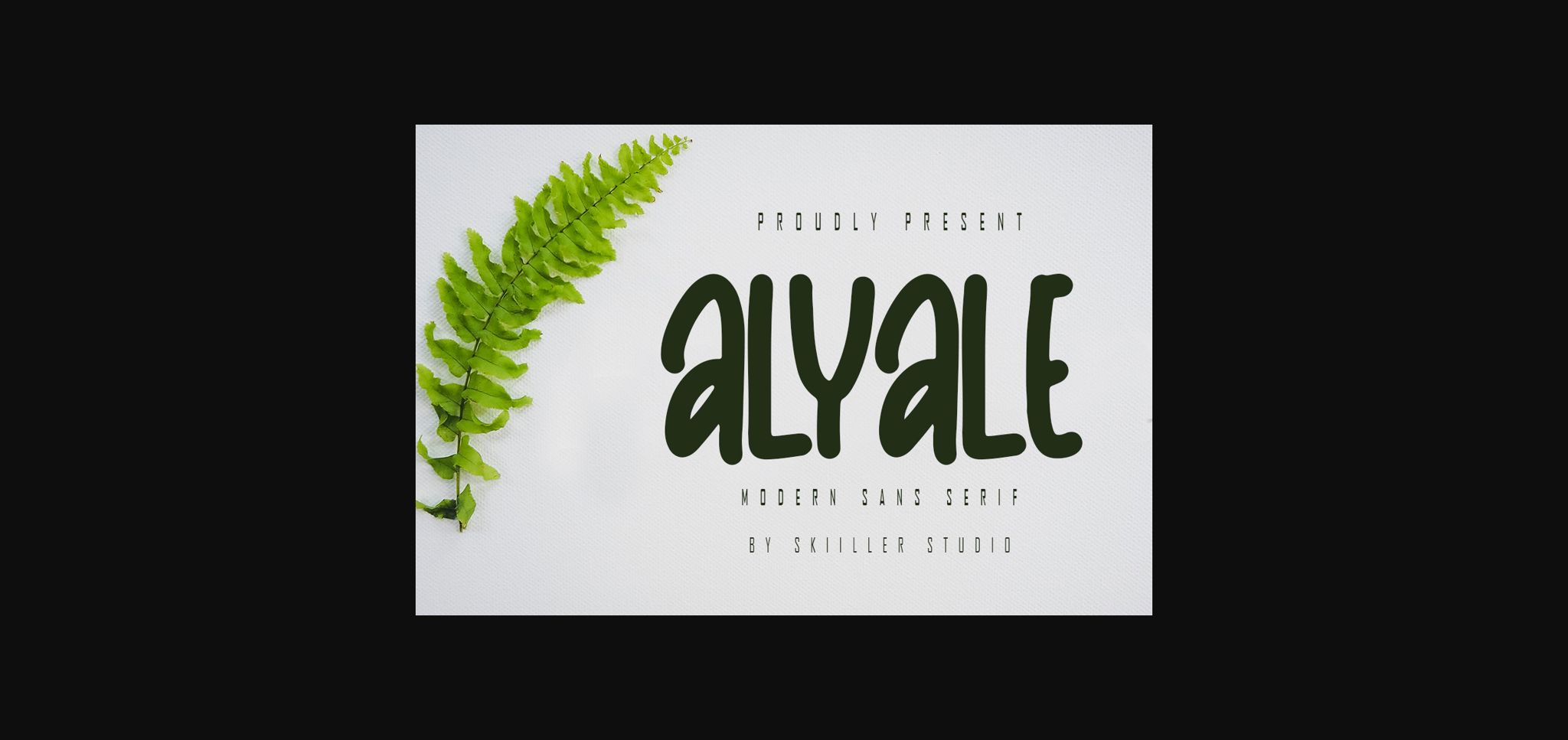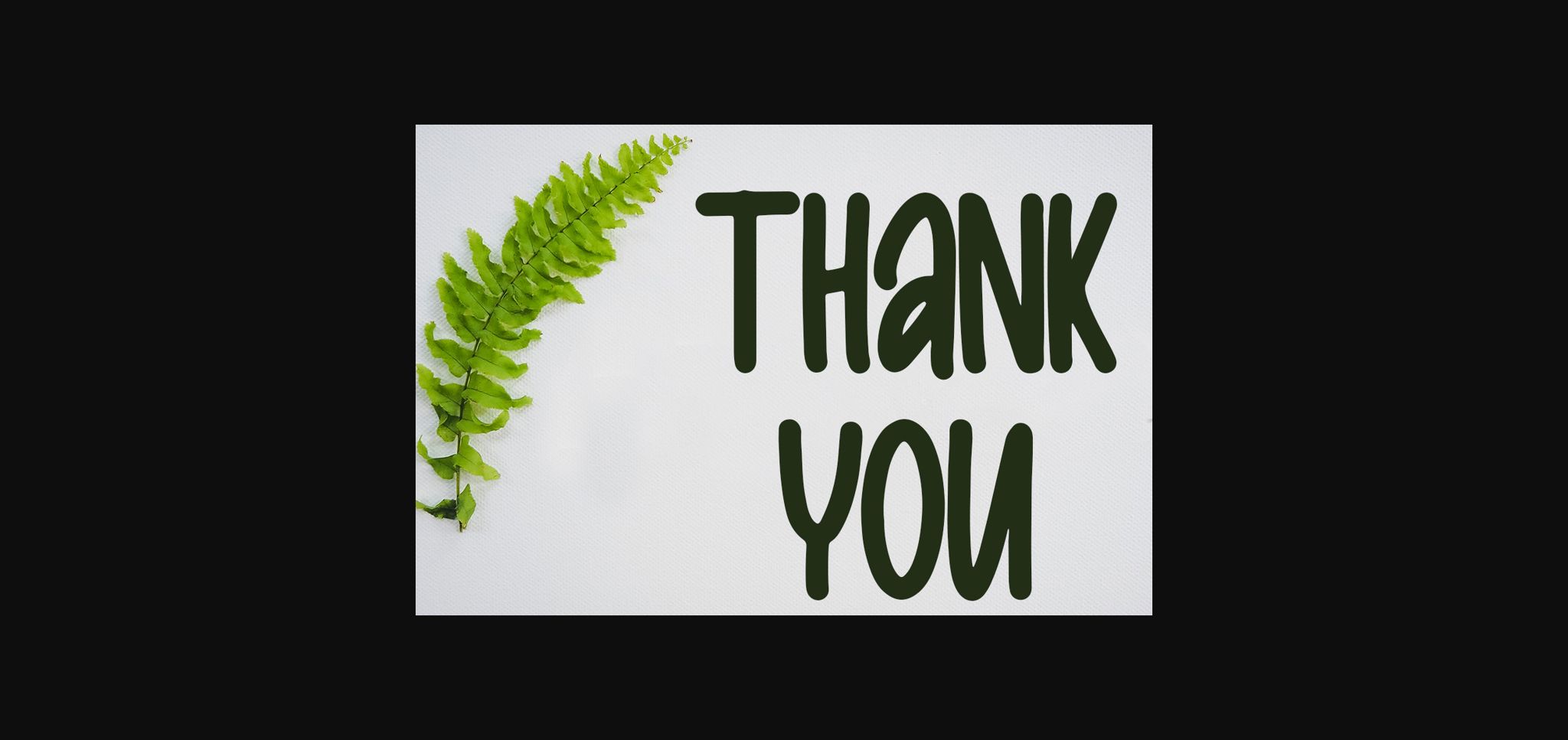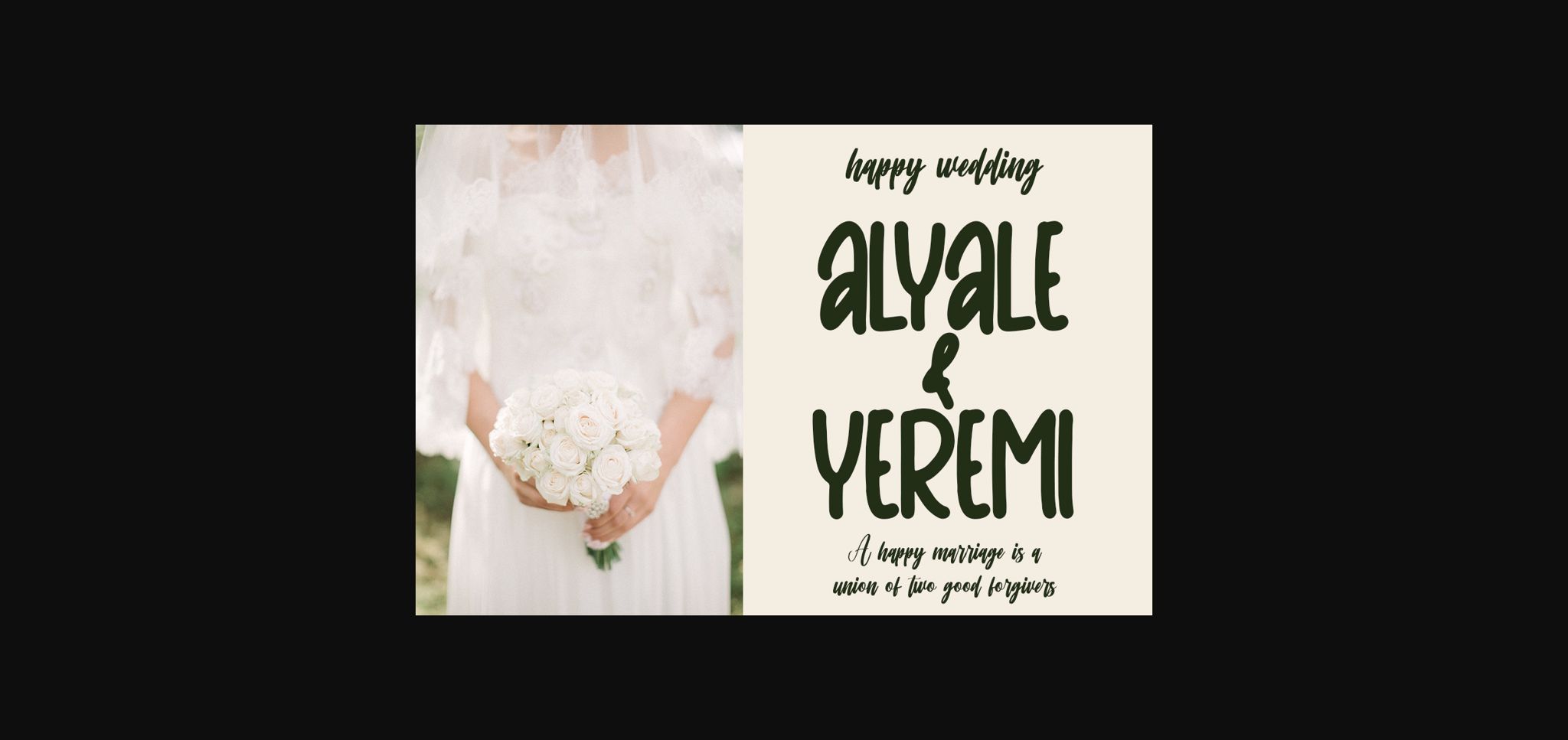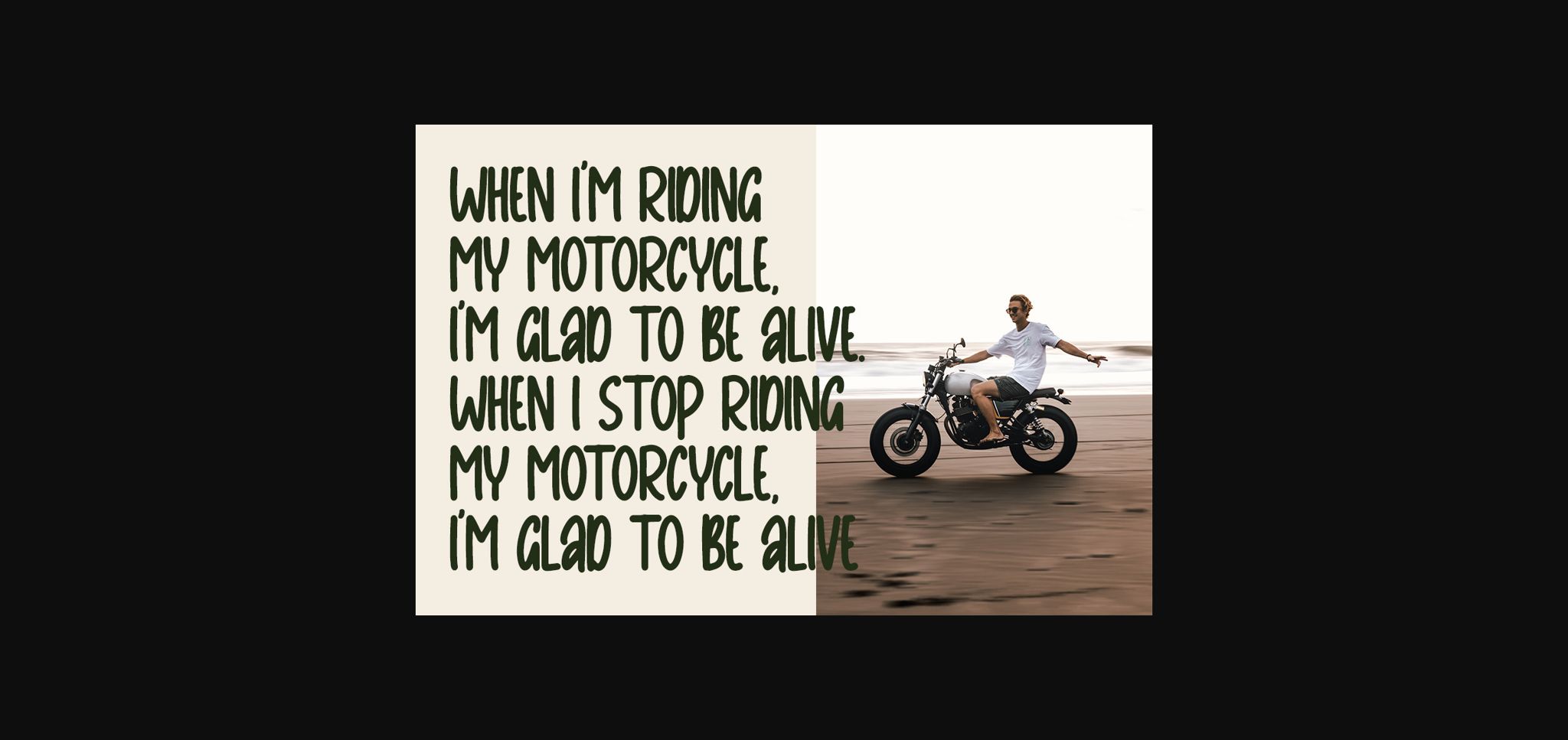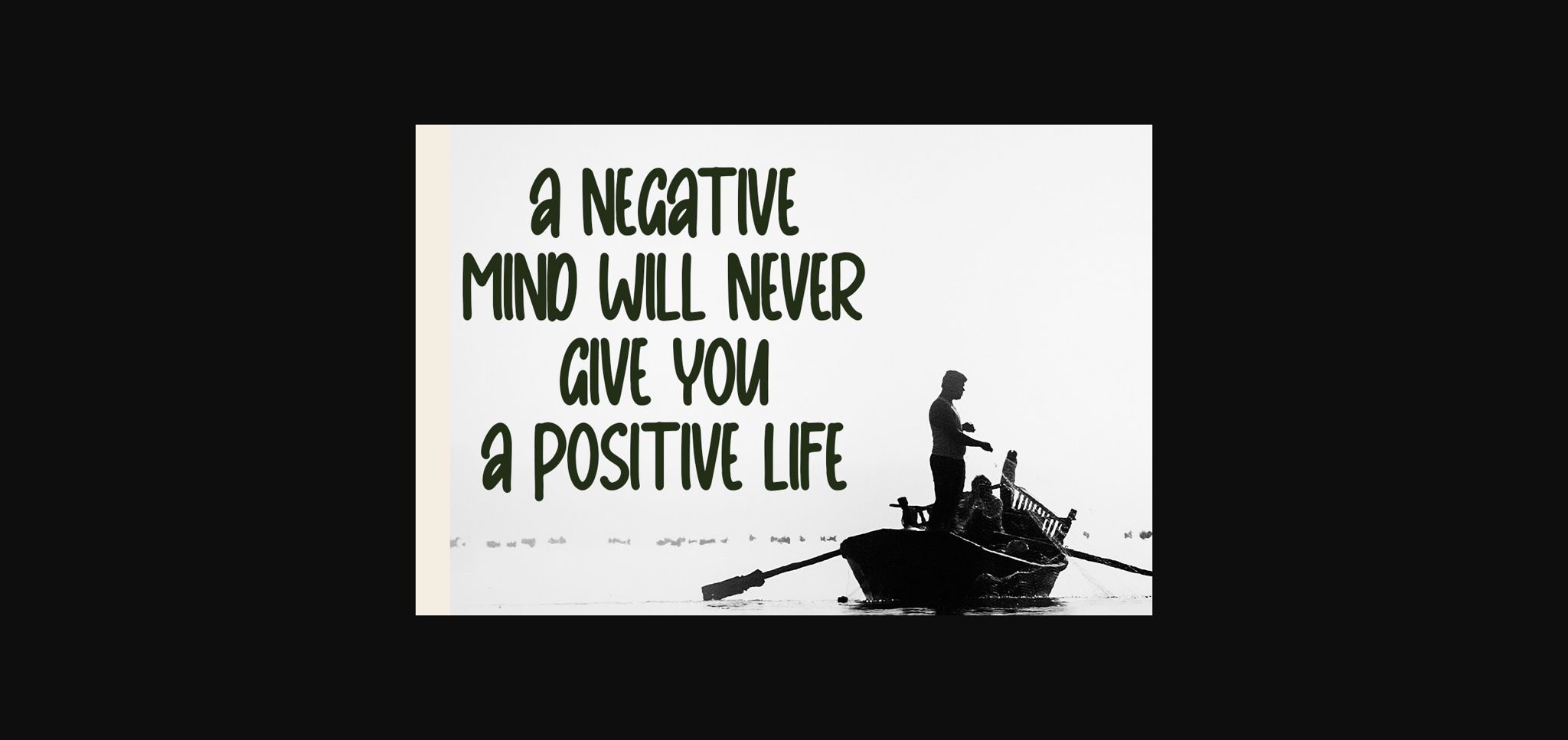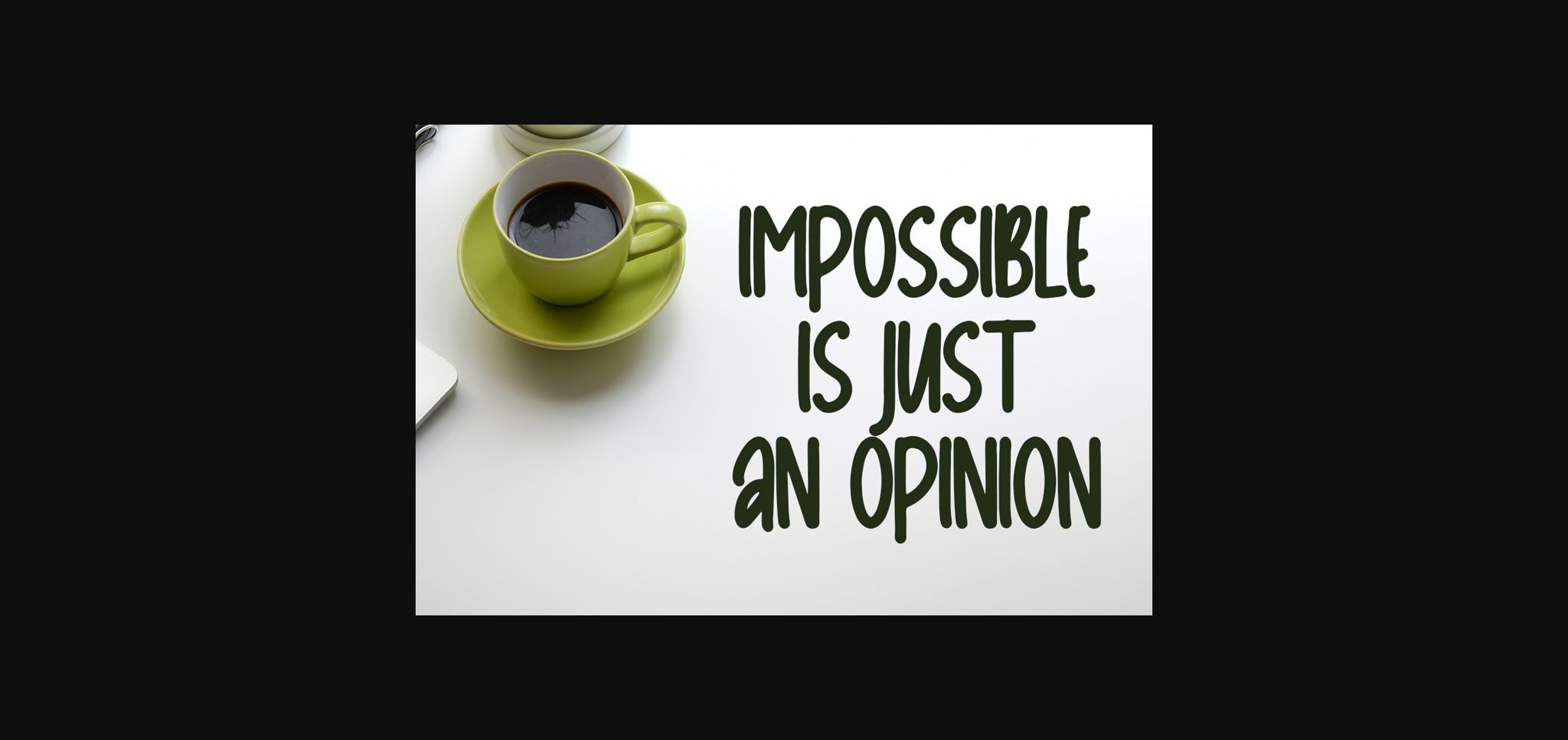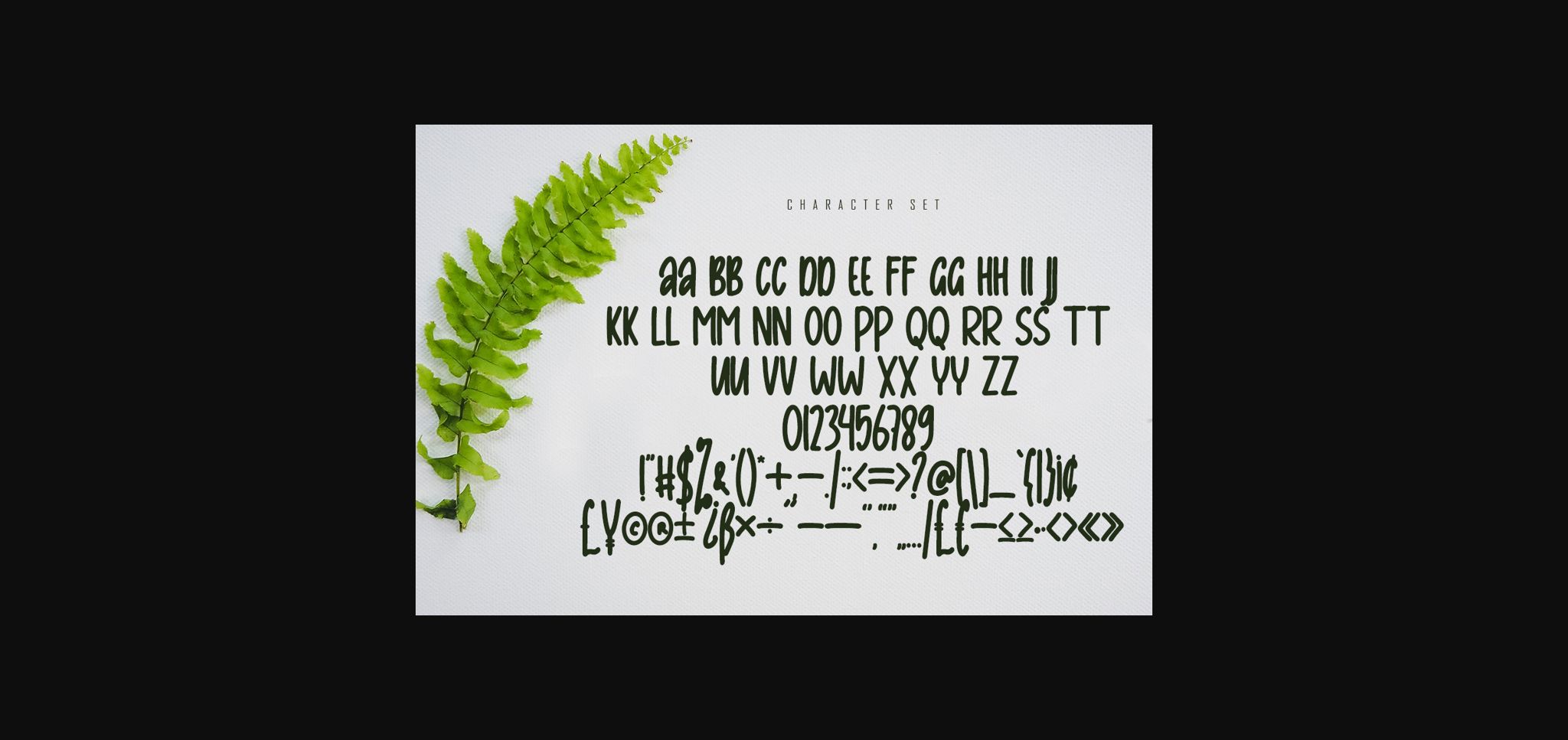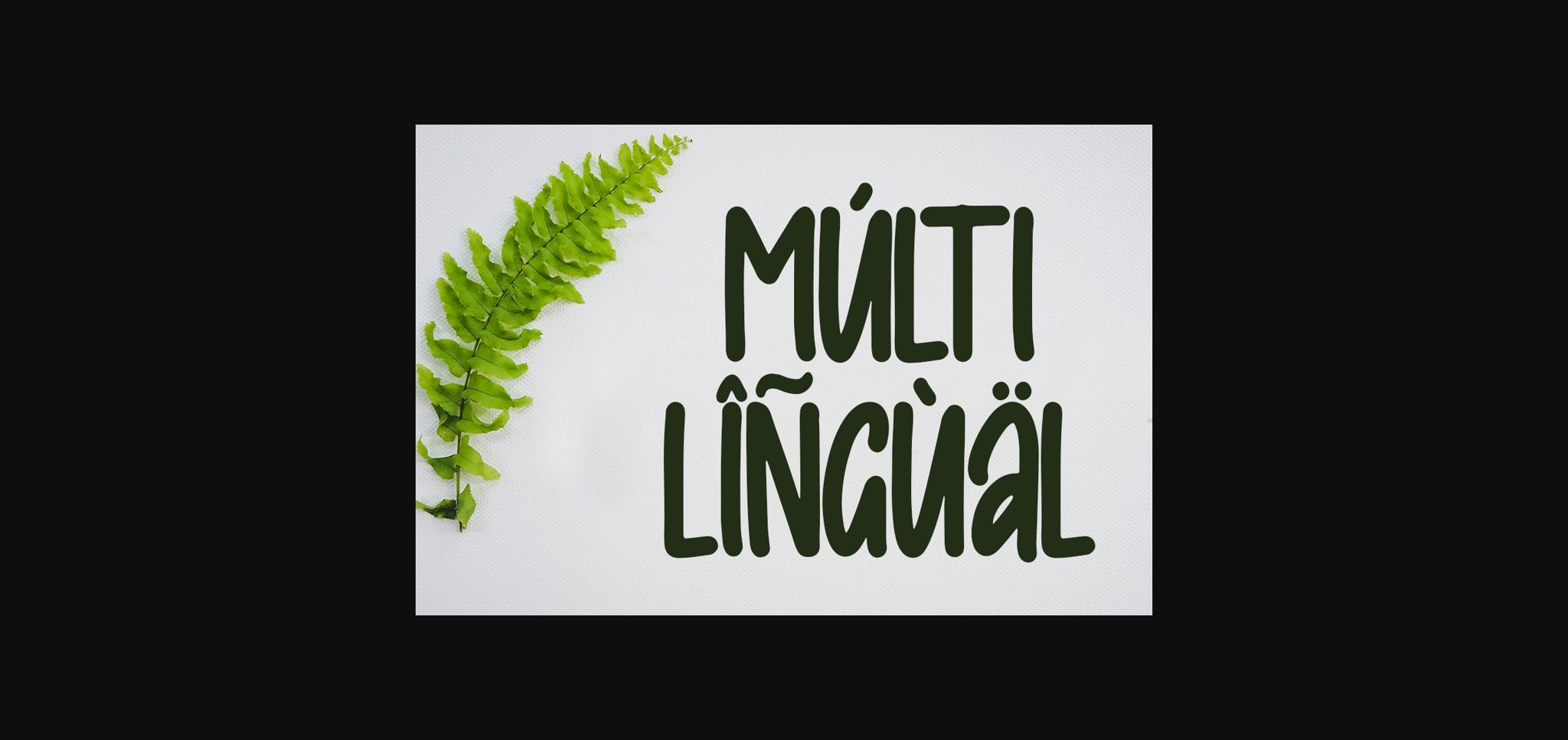
Alyale is a modern and cool sans serif font. It looks beautiful on a variety of designs requiring a personalized style, such as wedding invitations, thank you cards, weddings, greeting cards, logos, and so on.